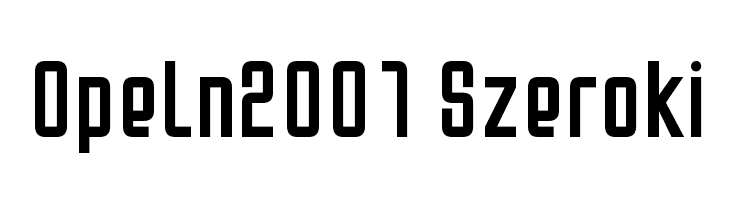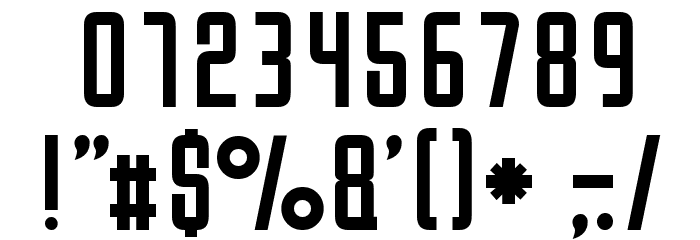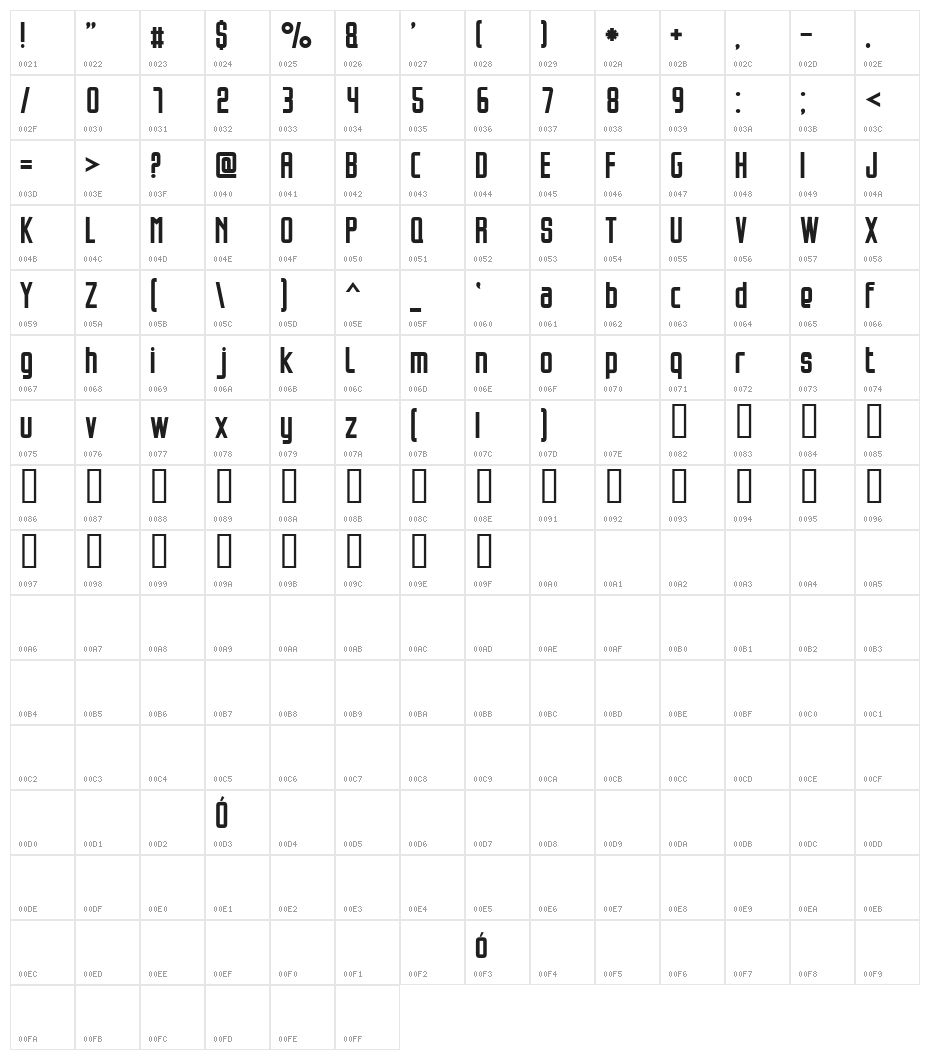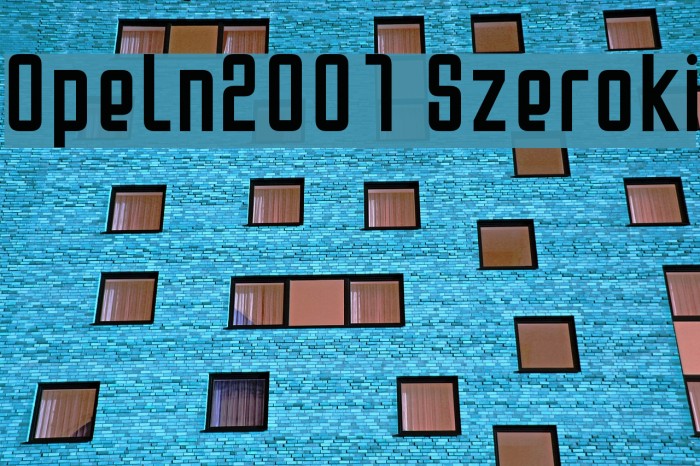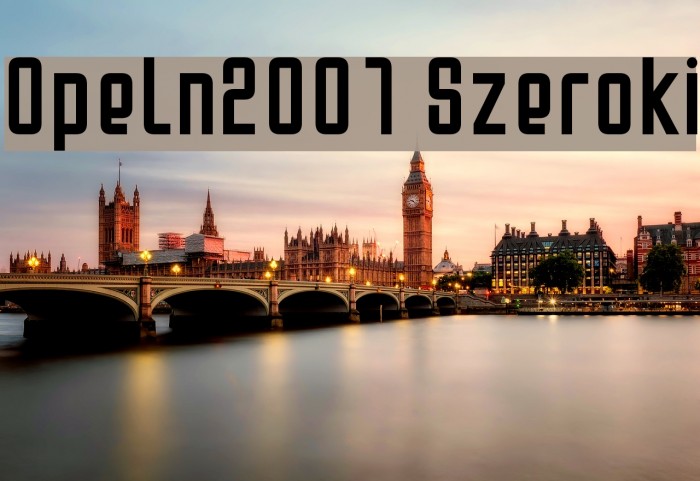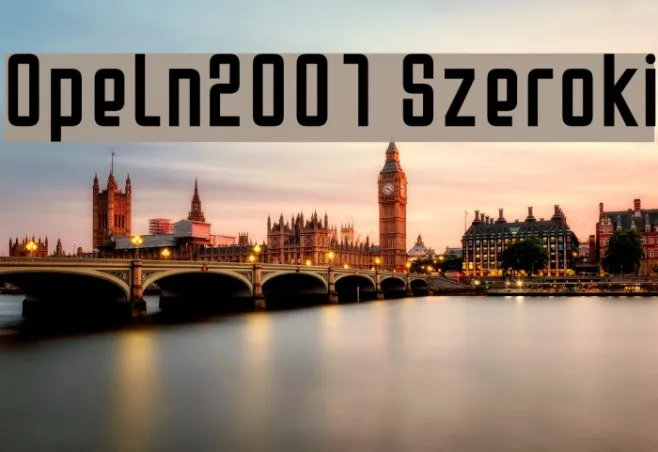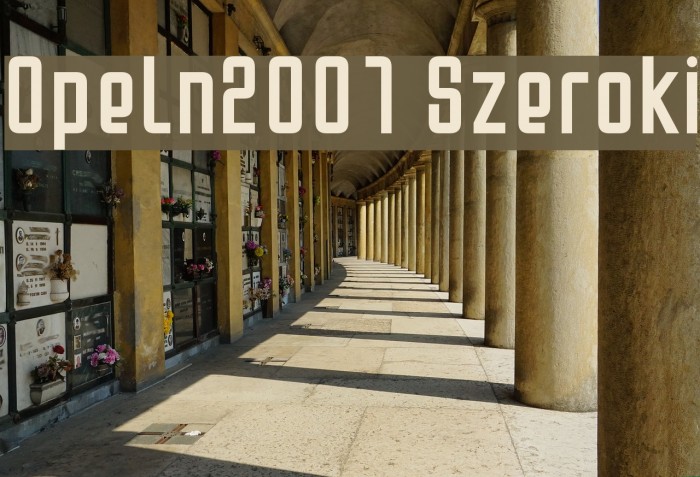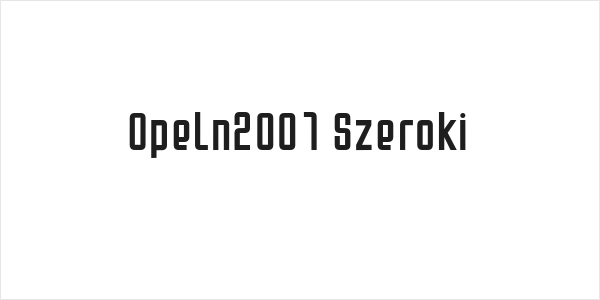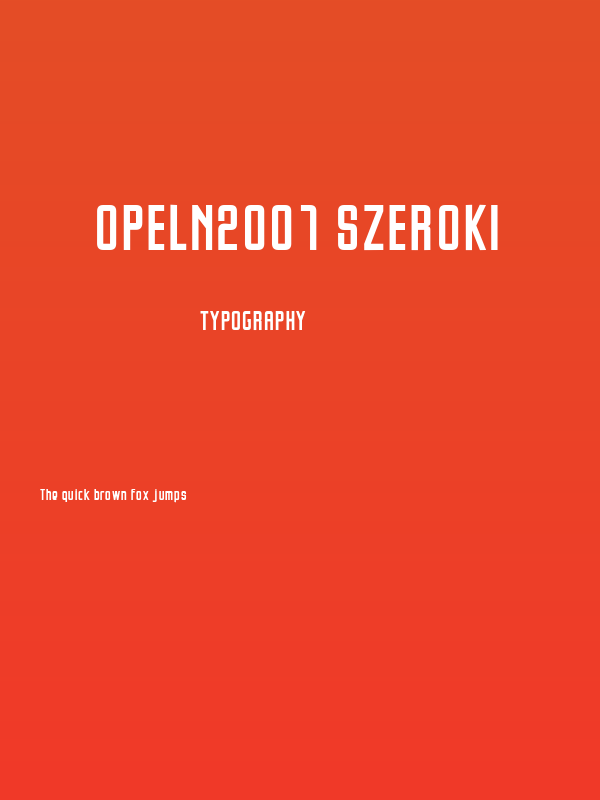
Opeln2001 Szeroki Font
Opeln2001 Szeroki Description
This font presents a bold and modern aesthetic with a geometric structure. The characters are tall and narrow, featuring clean lines and a uniform stroke width that conveys a sense of strength and clarity. The uppercase letters are particularly striking, with a consistent height and a slightly condensed form that enhances readability. The lowercase letters maintain the same geometric style, ensuring a cohesive look across different text sizes. The numerals are clear and distinct, matching the overall style of the alphabet. Special characters are well-integrated, providing versatility for various design needs.
| Proposed Projects | Ideal for branding, headlines, posters, and digital interfaces where a strong, modern presence is desired. |